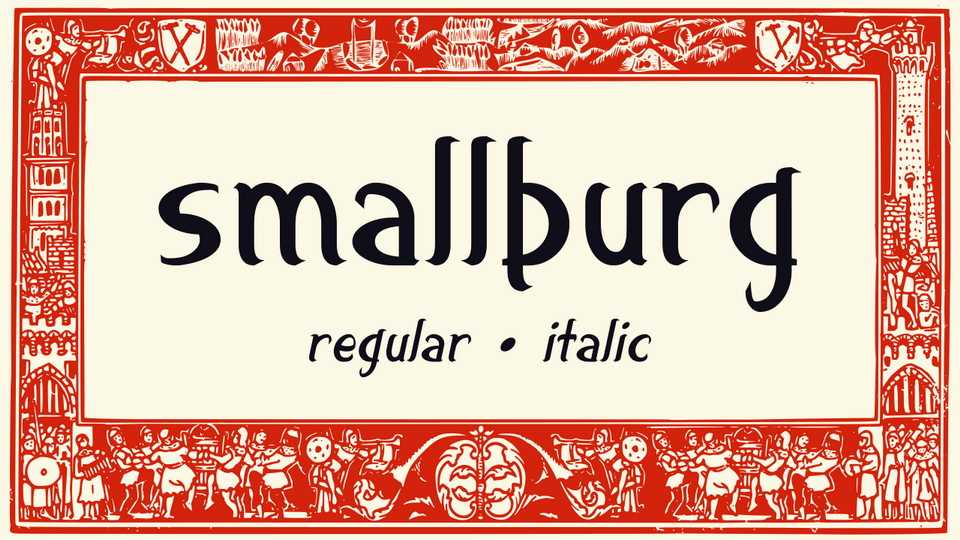
Download Smallburg font, a Celtic-style handwritten typeface inspired by medieval calligraphy. Smallburg font can be useful to create more antique look of your texts and design.